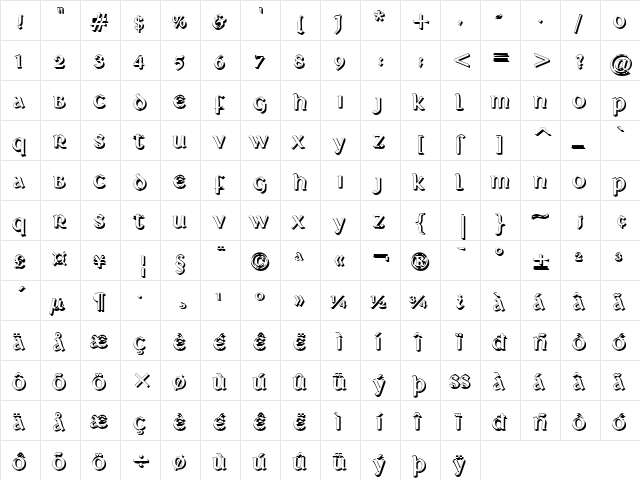
Deutsche Uncialis Shadow Regular
Design Context for Deutsche Uncialis Shadow Typeface
Deutsche Uncialis Shadow brings ornamental detail and strong personality to headlines and identities, where visual impact matters more than quiet functionality.
Font Pairing: Pair with a clean neutral sans-serif for body copy to let Deutsche Uncialis Shadow's character lead without overwhelming the composition.
Pro Tip: Use Deutsche Uncialis Shadow exclusively at display sizes — it was designed to be seen, not read at length. Let a neutral companion handle body copy.